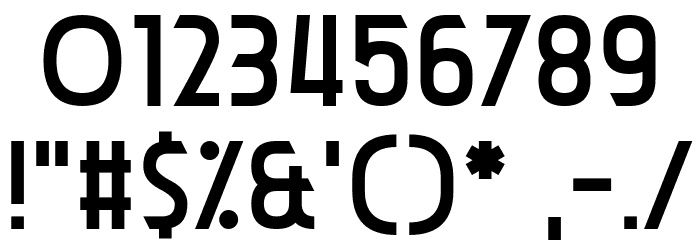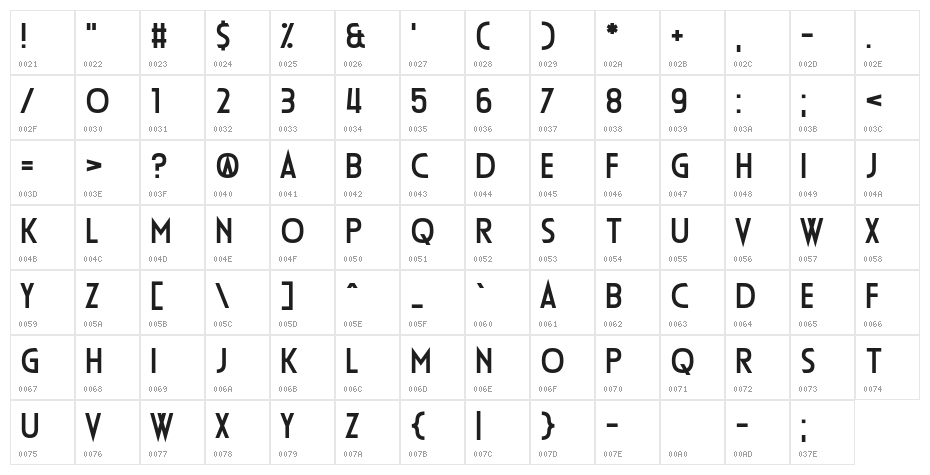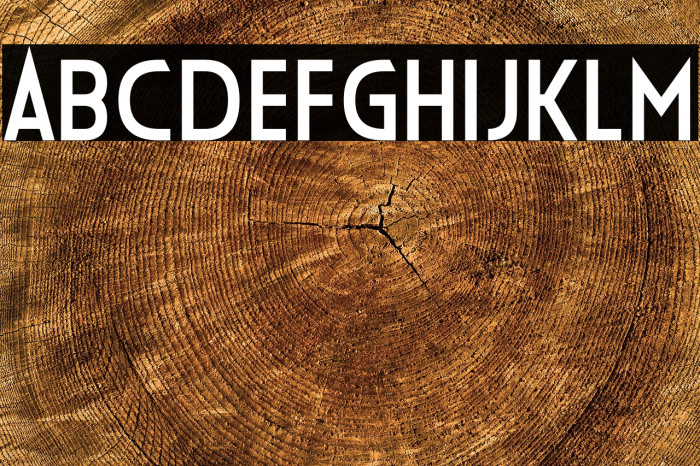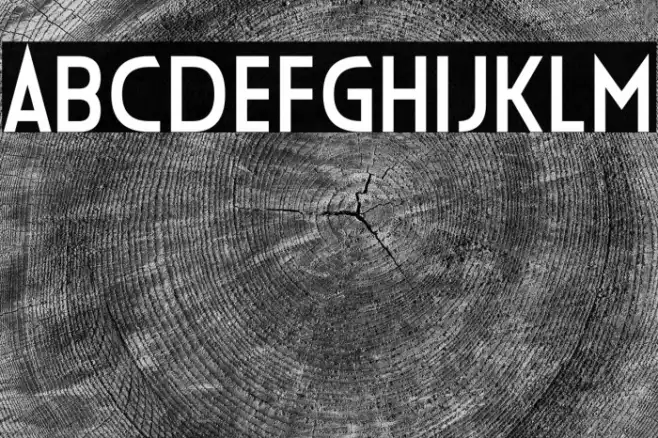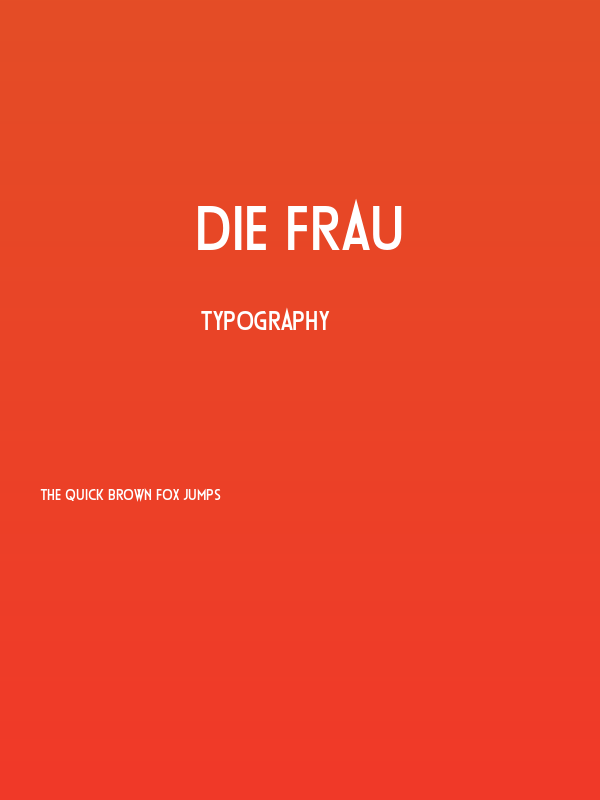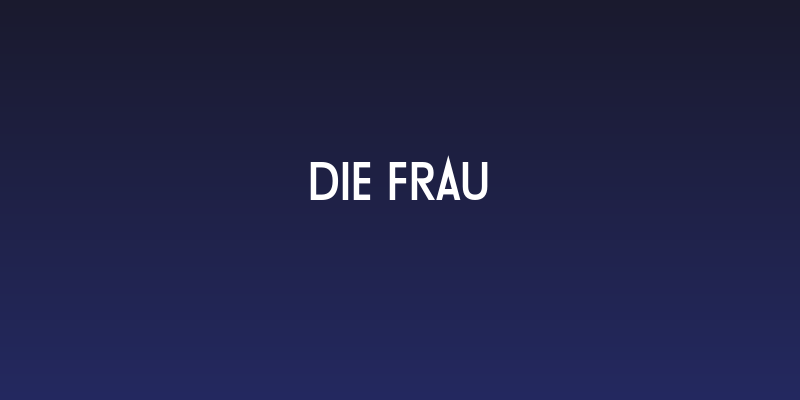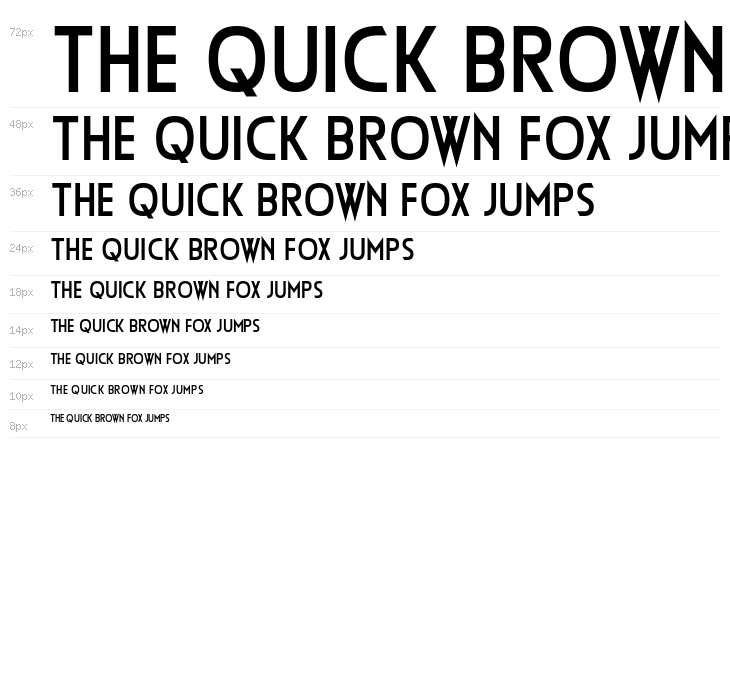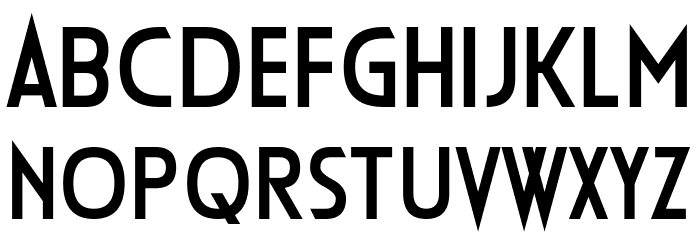
Die Frau Font
Die Frau Description
This font features a clean and modern sans-serif design, characterized by its geometric shapes and uniform stroke widths. The uppercase letters are bold and assertive, with a slightly condensed appearance that enhances readability. The lowercase letters maintain the same geometric precision, offering a harmonious balance between the two cases. Numbers are clear and distinct, with a consistent height that aligns well with the uppercase letters. Special characters are well-integrated, maintaining the overall aesthetic of the font. The design is versatile, making it suitable for a variety of applications where clarity and modernity are desired.